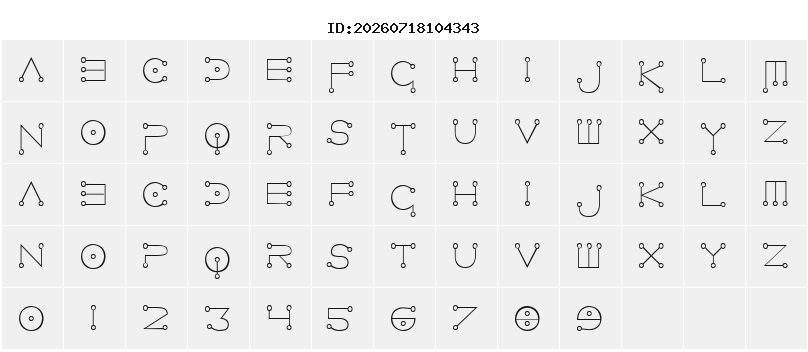
Celestial Preview
• Font Name: Celestial
• Font ID: FontMonger:Celestial English Normal
• Full Font Name: Celestial Normal
• Version: 2.00
• PostScript Name: CelestialNormal
• Character Count: 98
About Celestial.ttf
Celestial.ttf is a modern, elegant sans-serif font designed for ultimate readability and visual harmony. Perfect for branding, headlines, web design, and print materials.